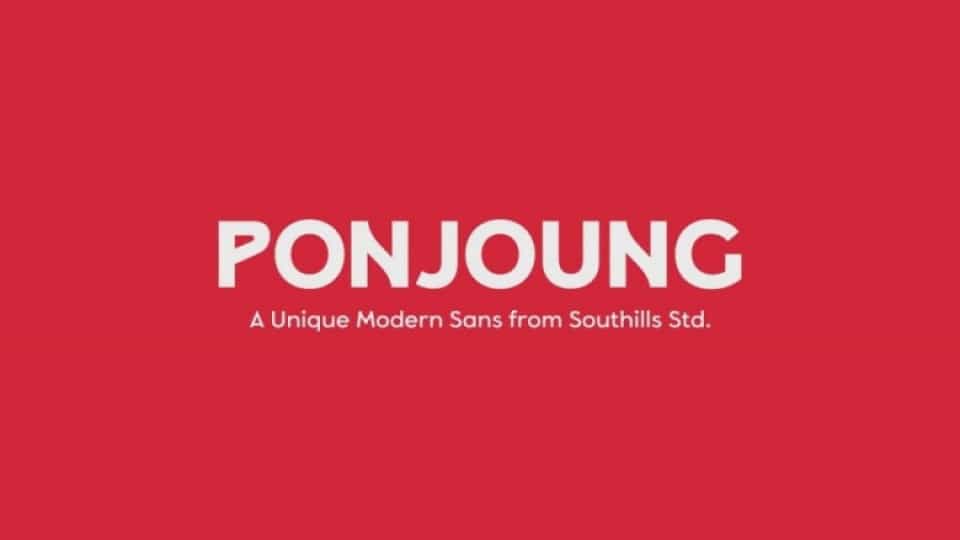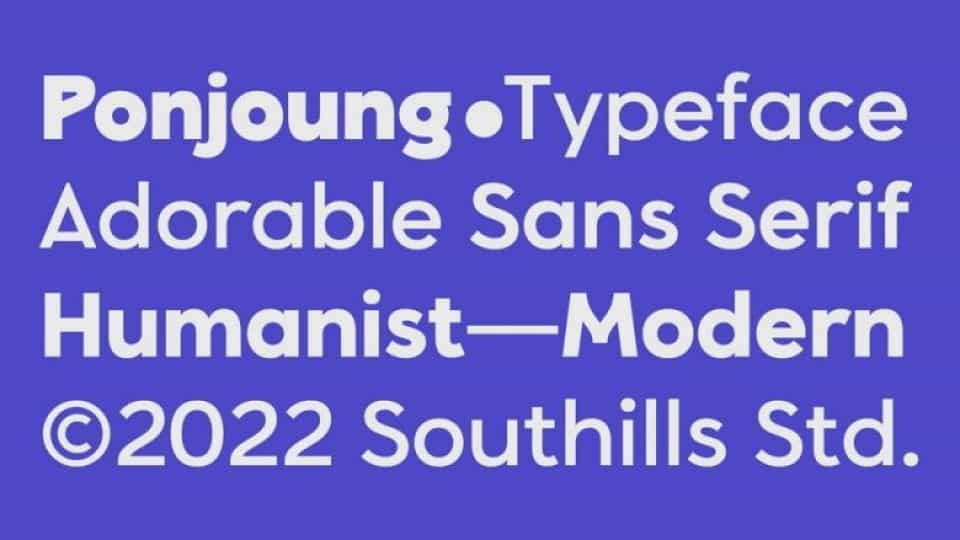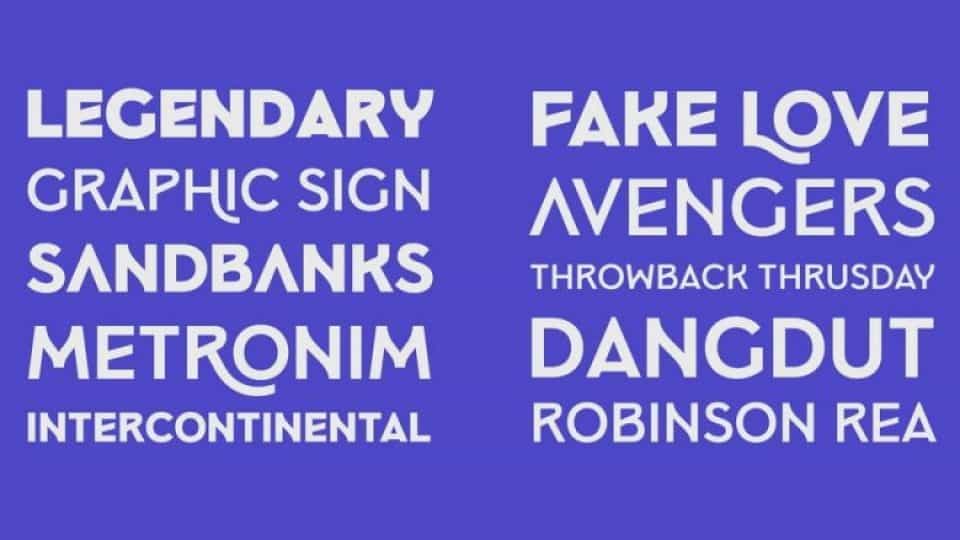
Ponjoung Font is an elegant and contemporary show sans serif font with distinctive geometric forms and distinctive accents, creating a font with its own signature look and feel. Equipped with four weights and italics to match, as well as capital letters with swashed capital letters for capitalization purposes and stylistic alternative fonts accessible via its OpenType menu,